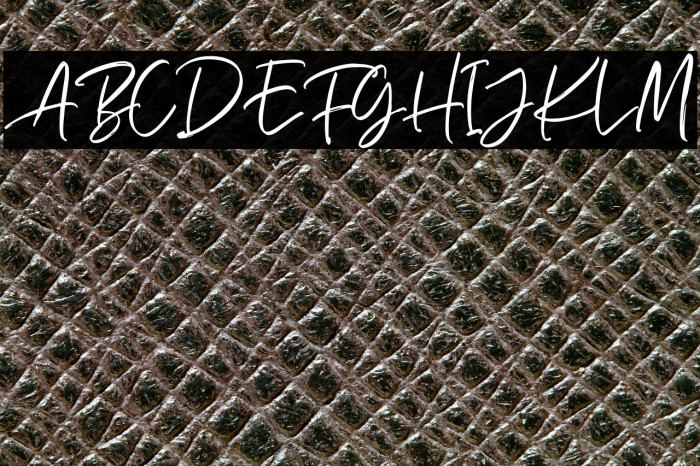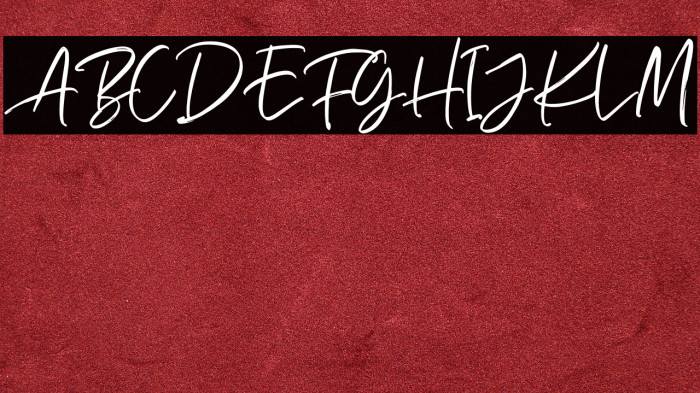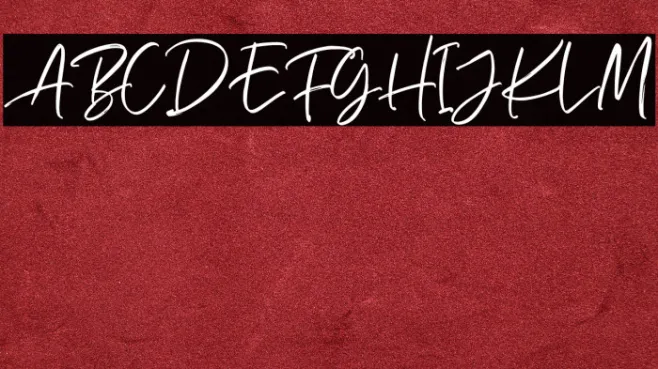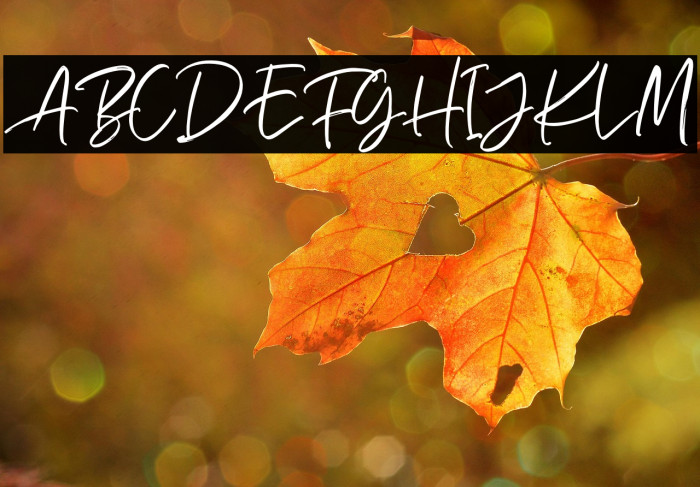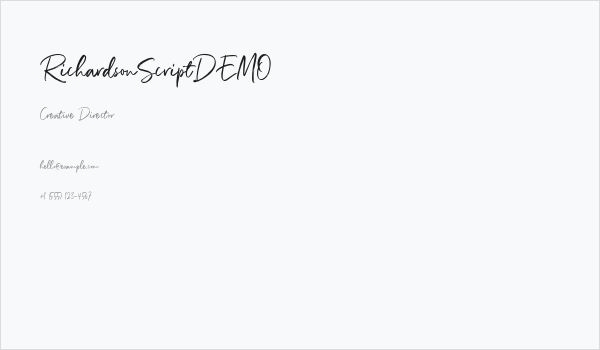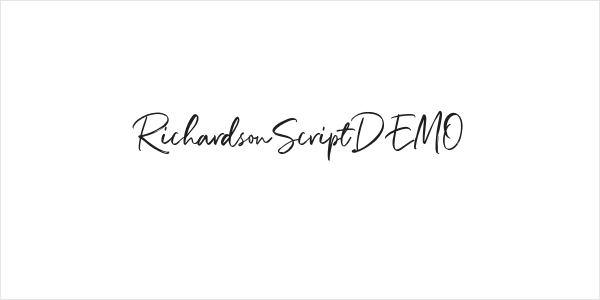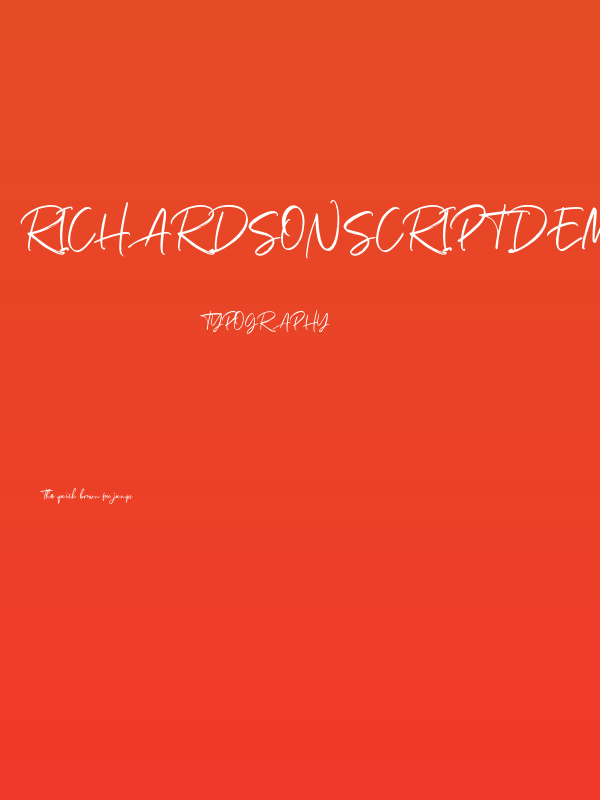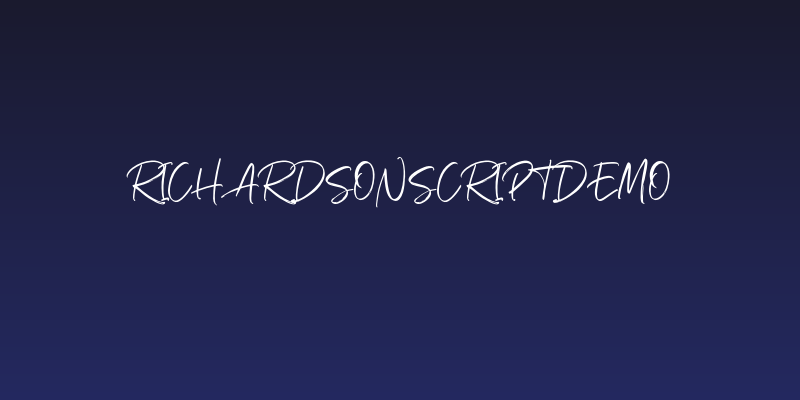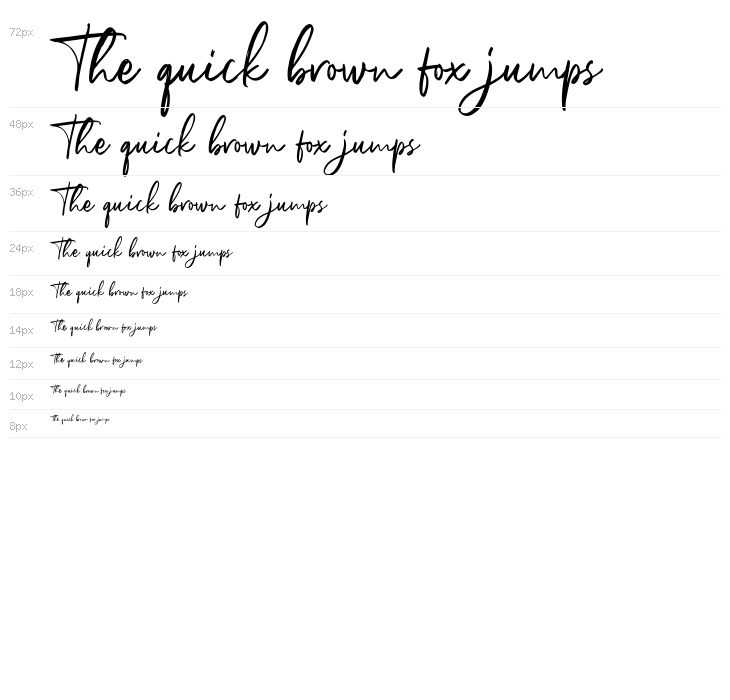
RichardsonScriptDEMO Font
RichardsonScriptDEMO Description
This font exudes a lively and dynamic handwritten style, characterized by its fluid and elegant script. The uppercase letters are tall and slightly slanted, giving a sense of movement and grace. The lowercase letters are more compact, with a smooth and flowing connection between them, enhancing the cursive feel. The numerals are consistent with the overall style, maintaining the same fluidity and elegance. Special characters are thoughtfully designed to match the script's aesthetic, ensuring a cohesive look across all text elements. This font is perfect for adding a personal touch to any design, conveying warmth and creativity.